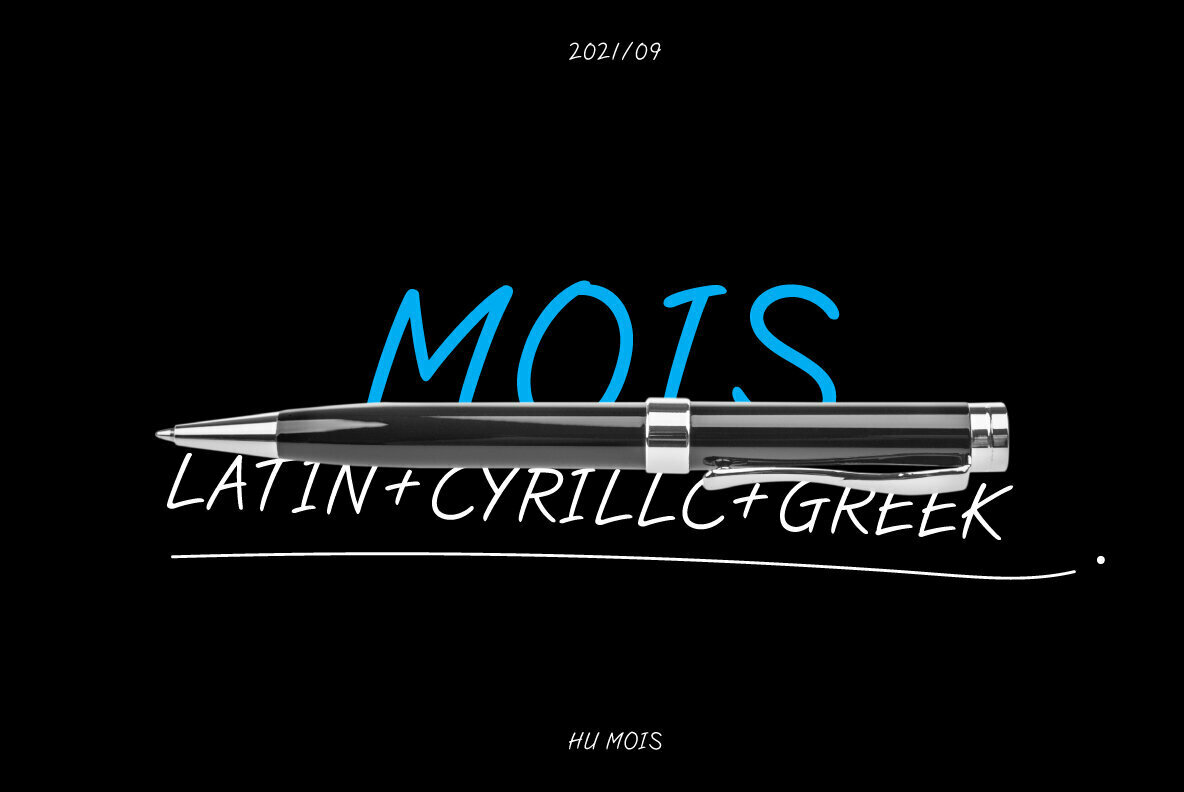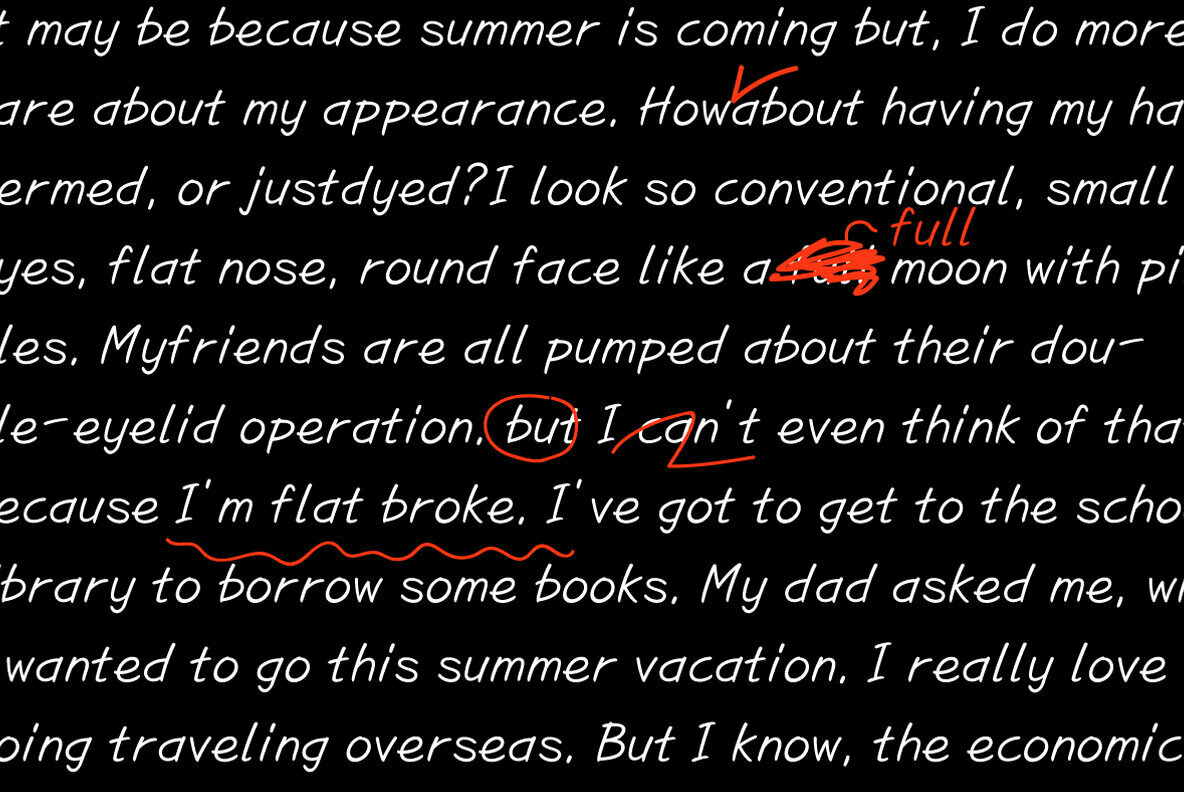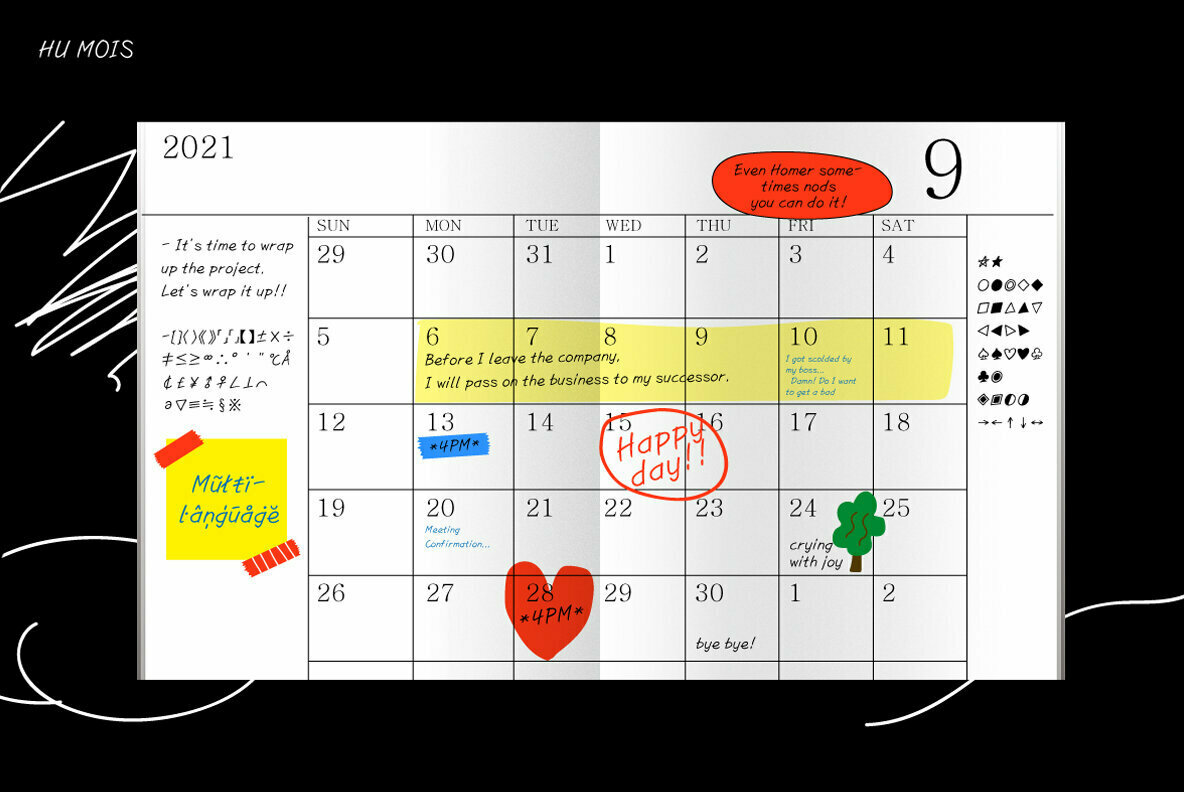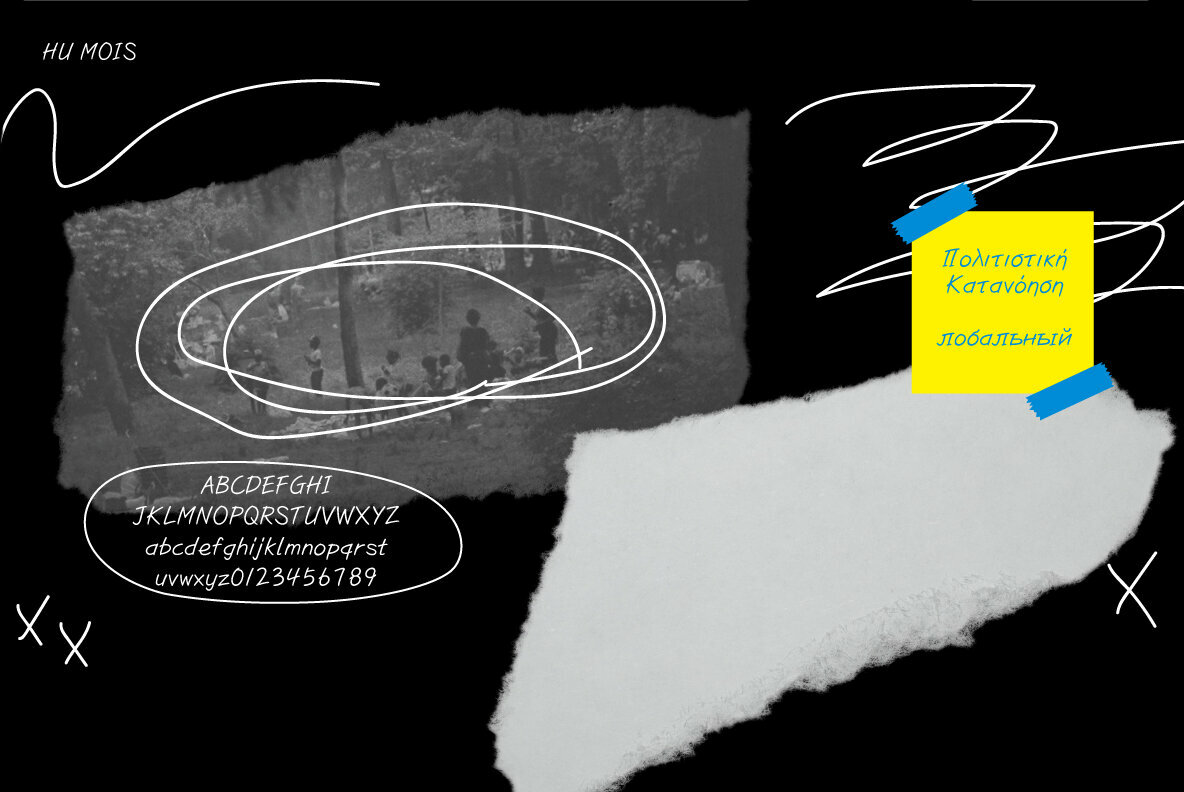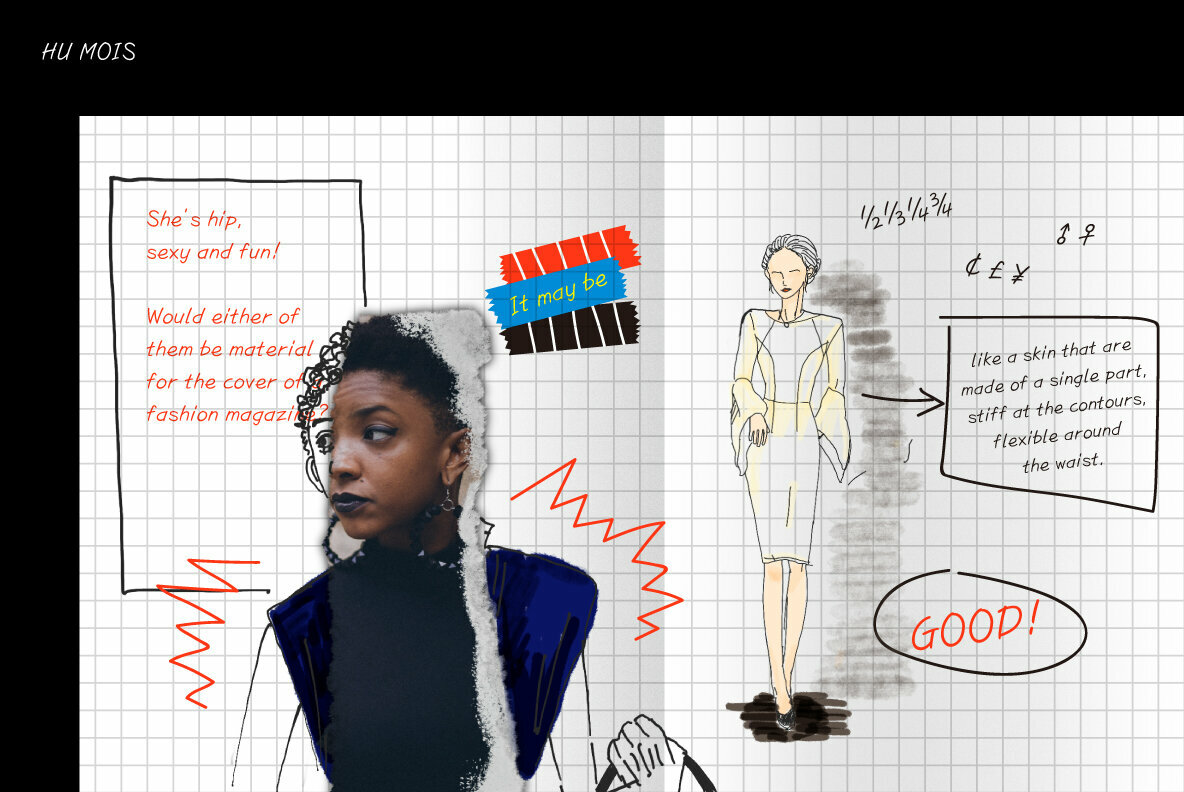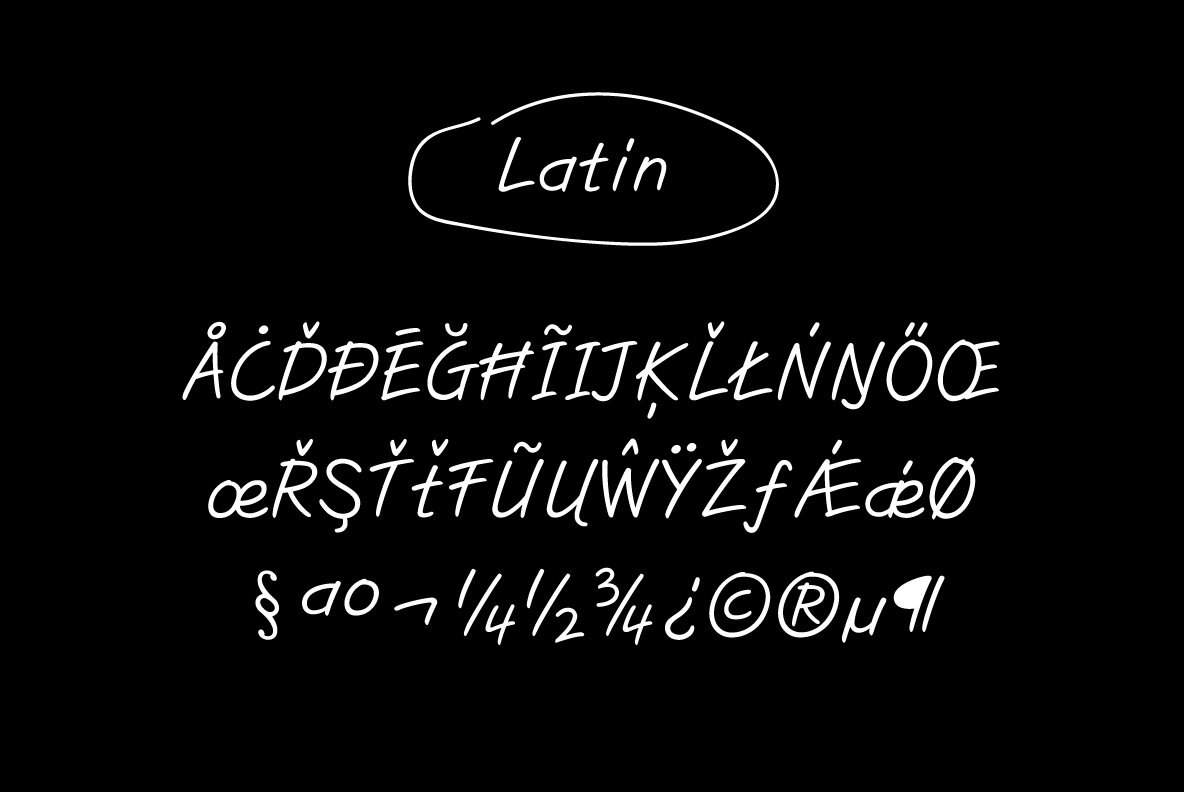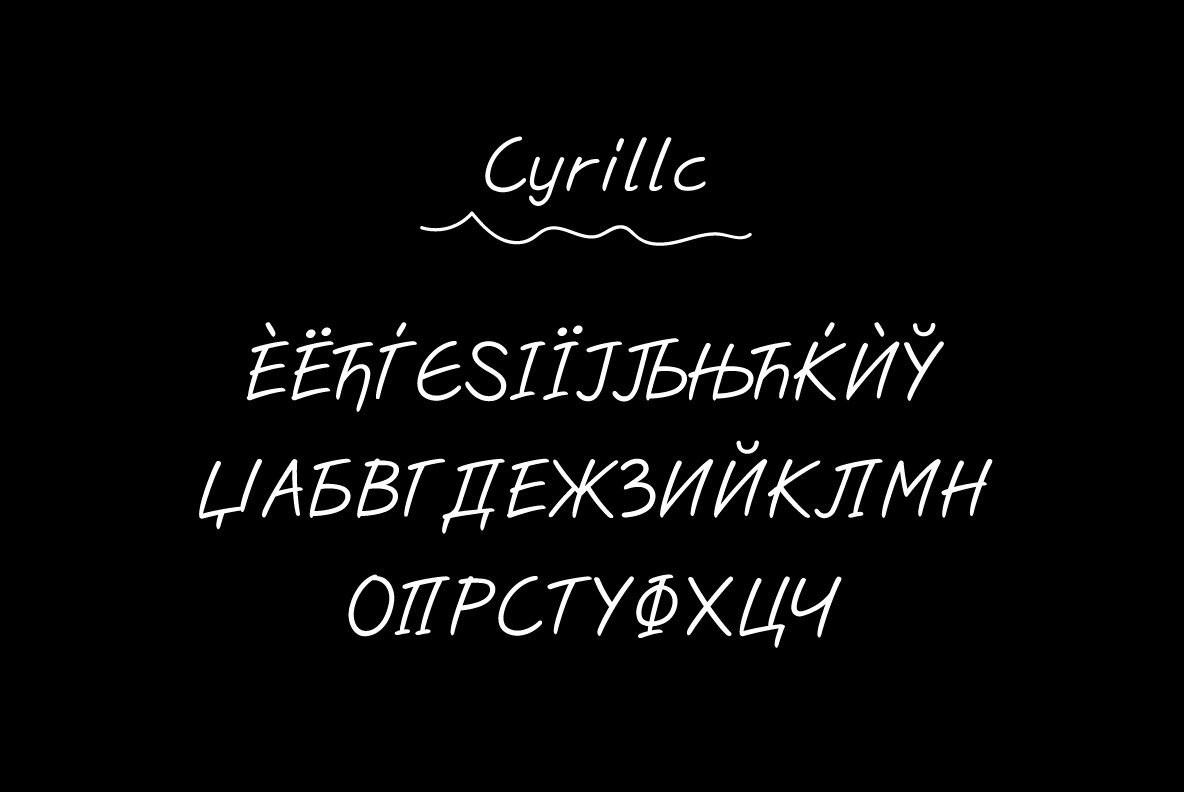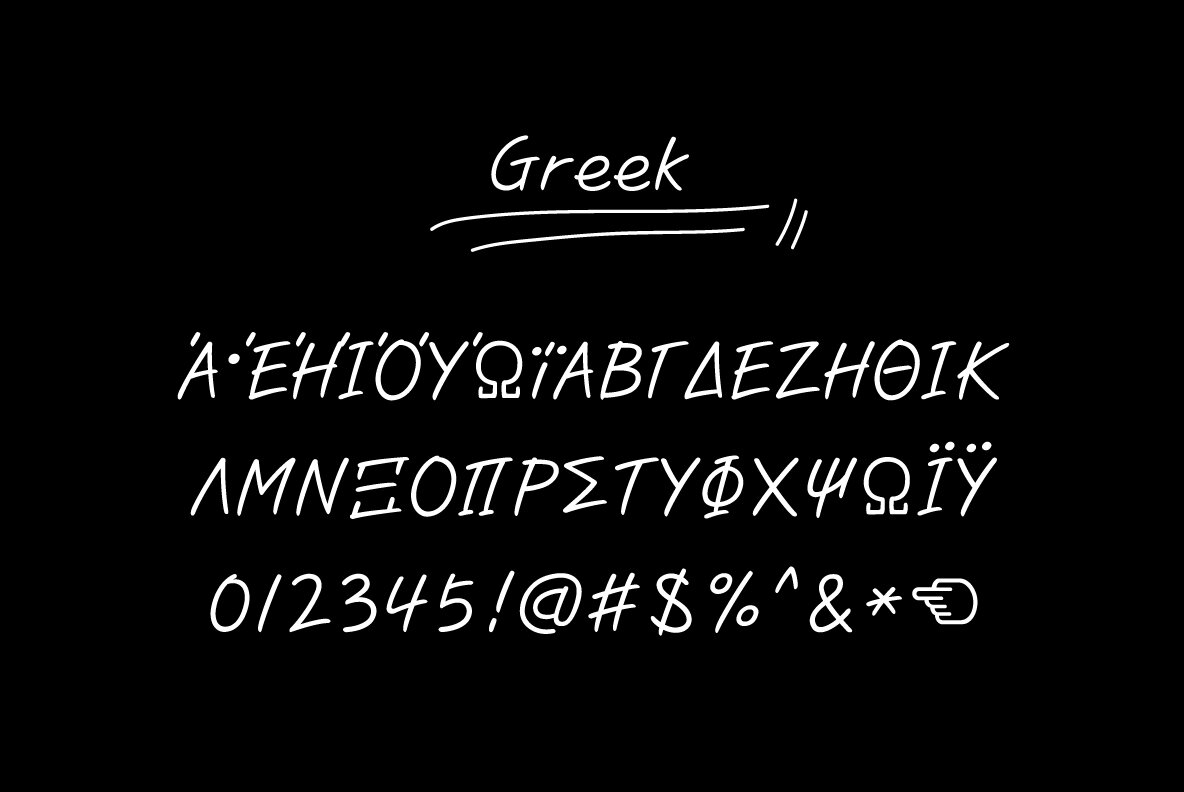
HU Mois: Dynamic Handwriting-Inspired Font
The HU Mois font offers an engaging blend of individuality and function, capturing the essence of handwritten notes with its swift, natural tilt. Designed to emulate the fluidity of pen to paper, this typeface conveys a personal touch that enhances creative endeavors.
• Expressive Tilt – Mimics the motion of taking notes for a dynamic look.
• Versatile Application – Suitable for a range of projects from digital to print.